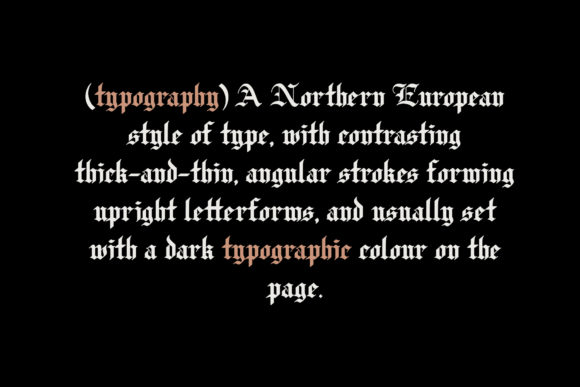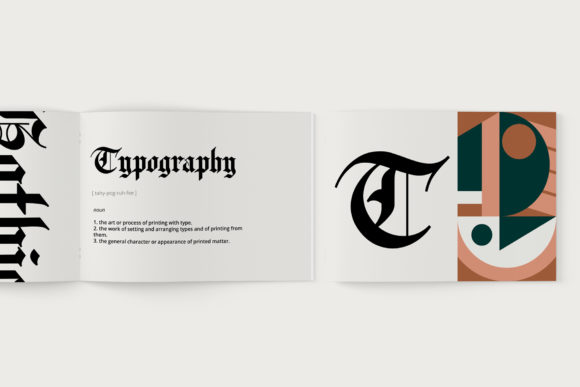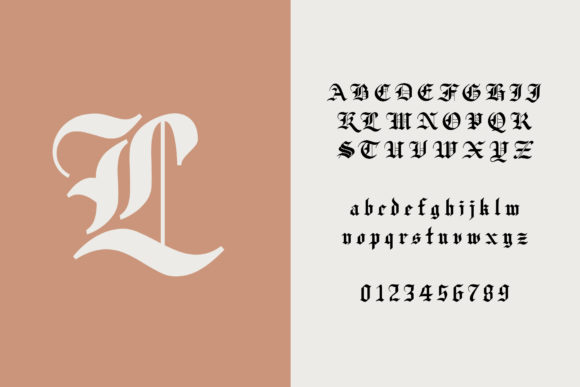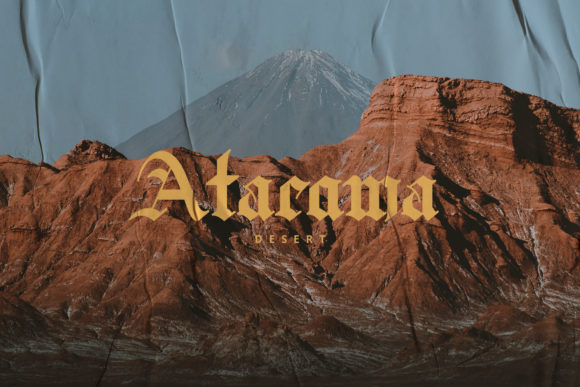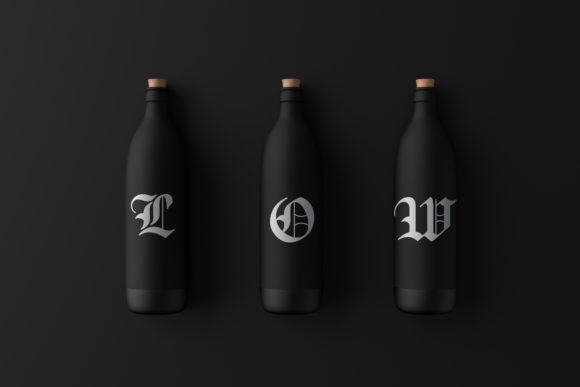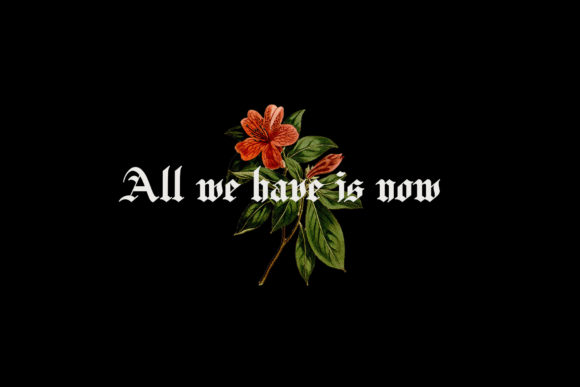
Discover the Timeless Elegance of Fullerton Next Font
Are you looking for a font that adds a touch of classic sophistication to your crafting projects? Look no further than Fullerton Next Font. This stunning blackletter font is a stylish homage to traditional calligraphy, featuring a vintage look that’s sure to elevate any design. In this article, we’ll explore the unique characteristics of Fullerton Next and why it’s the perfect choice for crafters and designers seeking a personalized look.
The Charm of Blackletter Fonts
Blackletter fonts have been a staple of calligraphy for centuries, with their dramatic flourishes and intricate details. These fonts were originally used in medieval manuscripts and have since evolved to become a popular choice for designers and crafters. Fullerton Next is a modern take on traditional blackletter fonts, with a unique blend of classic and contemporary elements.
What Makes Fullerton Next Stand Out
So, what sets Fullerton Next apart from other blackletter fonts? Here are just a few of its standout features:
- Vintage Look: Fullerton Next boasts a distinctly vintage aesthetic, perfect for crafters and designers seeking to add a touch of nostalgia to their projects.
- Stylish Homage: This font is a thoughtful tribute to traditional calligraphy, with elegant flourishes and intricate details.
- High Versatility: Fullerton Next is highly versatile, making it suitable for a wide range of crafting projects, from invitations and greeting cards to posters and signage.
- Ease of Use: This font is easy to read and works well in both digital and print formats, making it a great choice for crafters and designers working in various mediums.
Perfect for Crafting Projects
Fullerton Next is an excellent choice for any crafting project that requires a personalized look. Here are some ideas to get you started:
- Invitations and Greeting Cards: Add a touch of elegance to your invitations and greeting cards with Fullerton Next.
- Posters and Signage: Use this font to create eye-catching posters and signage for events, promotions, or business advertising.
- Journaling and Scrapbooking: Add a vintage touch to your journaling and scrapbooking projects with Fullerton Next.
- Wedding Stationery: Make your wedding stationery truly special with this beautiful blackletter font.
Tips for Using Fullerton Next
To get the most out of Fullerton Next, here are some tips to keep in mind:
- Pair with Simple Fonts: Balance out the ornate details of Fullerton Next by pairing it with simpler fonts.
- Experiment with Colors: Try out different color schemes to find the perfect match for your project.
- Pay Attention to Size: Make sure to adjust the font size according to the specific needs of your project.
In conclusion, Fullerton Next Font is an exceptional blackletter font that offers a unique blend of classic and contemporary elements. Its vintage look, stylish homage to traditional calligraphy, and high versatility make it an excellent choice for crafters and designers seeking a personalized look. Whether you’re working on invitations, posters, journaling, or wedding stationery, Fullerton Next is sure to elevate your designs and add a touch of timeless elegance.